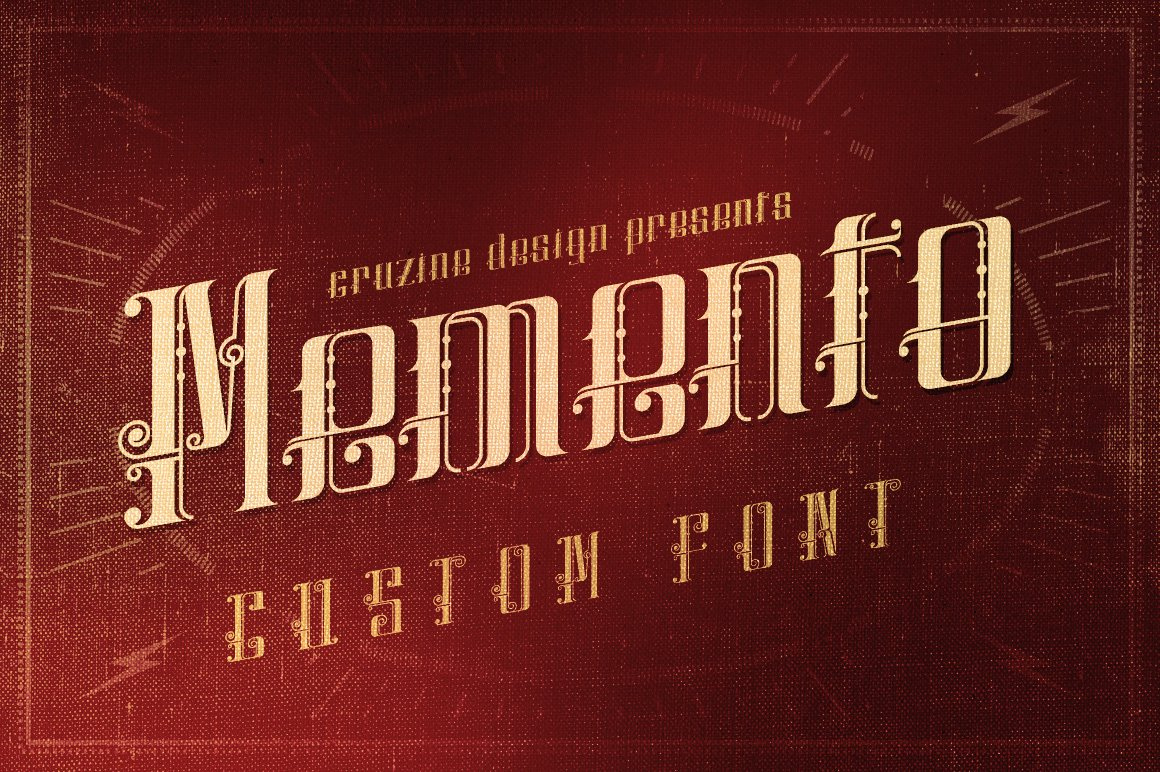
Memento Custom Font
Memento Custom Font is perfect for memorial photography studios, heritage family businesses, sentimental keepsake companies, nostalgic memory preservation services, emotional storytelling brands, touching tribute materials, heartfelt anniversary celebrations, meaningful genealogy services, cherished scrapbook designs, and poignant remembrance organizations.
Memento Custom Font creates excitement because it embodies the tender beauty and emotional depth of precious memories with its graceful letterforms and remembrance-inspired character design. The font's gentle curves and nostalgic aesthetic instantly convey heartfelt sentiment and timeless remembrance, making any brand appear deeply meaningful and authentically commemorative. Its carefully crafted memorial details and sentimental character create an immediate sense of cherished memory that captivates audiences seeking meaningful experiences, emotional connections, and products that celebrate the transformative power of preserving precious memories and honoring life's most treasured moments.